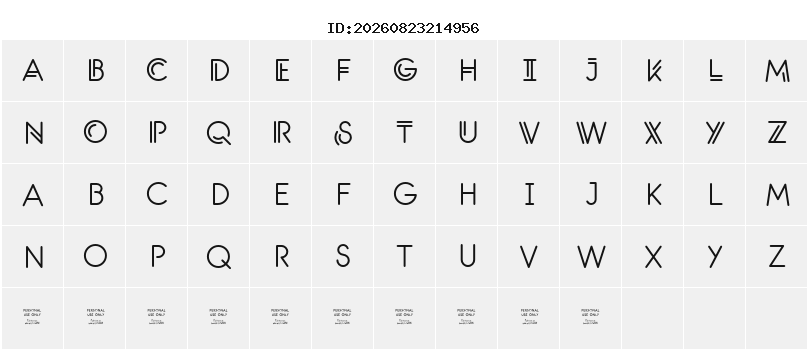
Santanelli-PERSONAL-USE-ONLY Preview
• Designer: Gilberto Moya
• Manufacturer: Pisto Casero
About Santanelli-PERSONAL-USE-ONLY.otf
Santanelli-PERSONAL-USE-ONLY.otf is a modern, elegant sans-serif font designed for ultimate readability and visual harmony. Perfect for branding, headlines, web design, and print materials.